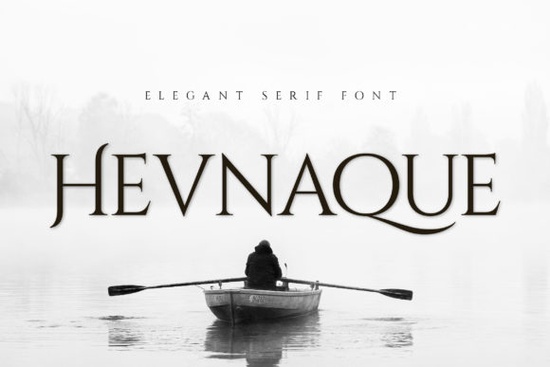
If you’re looking for a serif font that feels both modern and timeless, Hevnaque Font might be exactly what your next project needs. It’s not overly ornate or stiff instead, it strikes a clean balance between elegance and readability. Whether you’re designing a logo, laying out a magazine spread, or adding text to a t-shirt mockup, Hevnaque adapts without losing its character. What sets it apart are the subtle alternative letterforms tucked inside, letting you switch up the look without switching fonts.
You’ll find this typeface especially useful if you work with branding or packaging. The letter shapes have enough personality to stand out on a product label, but they don’t overwhelm the viewer. And because it supports multiple languages, you won’t run into trouble if your audience reads in Spanish, French, German, or other Latin-based scripts. That kind of flexibility matters when you’re creating for real people, not just portfolios.
What kinds of projects does Hevnaque work best for?
Here’s where this font really shines:
- Logo design – Its refined curves and balanced weight make it ideal for upscale or boutique-style brands.
- Printed materials – Think brochures, business cards, or editorial layouts where you want text to feel intentional, not generic.
- Apparel and merch – The alternates give you room to tweak letters so your hoodie or tote bag doesn’t look like everyone else’s.
- Social media graphics – Overlay it on photos for quotes, announcements, or promotions it holds up even at smaller sizes.
If you’ve tried Proyale or Dihot before and liked their structure but wanted something with more fluidity, Hevnaque fills that gap. It’s less rigid than Proyale, less geometric than Dihot, and carries more warmth than something like Calming.
How do the alternative characters actually help me?
Inside the font file, you’ll find swashes and stylistic alternates for certain letters mostly vowels and terminals like ‘y’ or ‘g’. These aren’t gimmicks. They’re thoughtful variations that let you break repetition in headlines or add a signature touch to a wordmark.
For example, if you’re designing a boutique coffee brand called “Haven & Co.”, swapping the standard ‘a’ for the alternate gives the name a softer, more handwritten feel without needing a script font. Tools like Adobe Illustrator or Canva (with OpenType support) let you toggle these easily. Even if you’re using basic software, most of the alternates are accessible through the glyph panel.
Is Hevnaque easy to pair with other fonts?
Yes and that’s one of its quiet strengths. Because it’s a serif with clean lines and moderate contrast, it doesn’t fight with sans-serifs or even minimalist scripts. Try pairing it with a neutral sans like Montserrat or Lato for body text. Or, if you want something bolder, stack it with a condensed display font for contrast.
Avoid pairing it with overly decorative serifs that’s where things get visually noisy. Instead, let Hevnaque be the focal point. If you’re unsure, test combinations using mockups. Sometimes the simplest pairings like Hevnaque for headlines and a plain sans for captions create the most polished results.
Quick tip before you start using it
Before committing to Hevnaque in a client project or final product, test it at different sizes and on different backgrounds. Some elegant serifs lose clarity when scaled down or placed over textured images. Hevnaque holds up well, but always preview it in context especially if you’re printing on fabric or low-res screens.